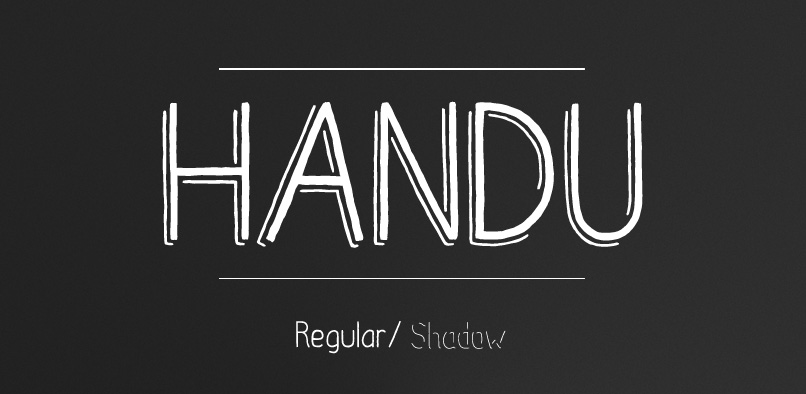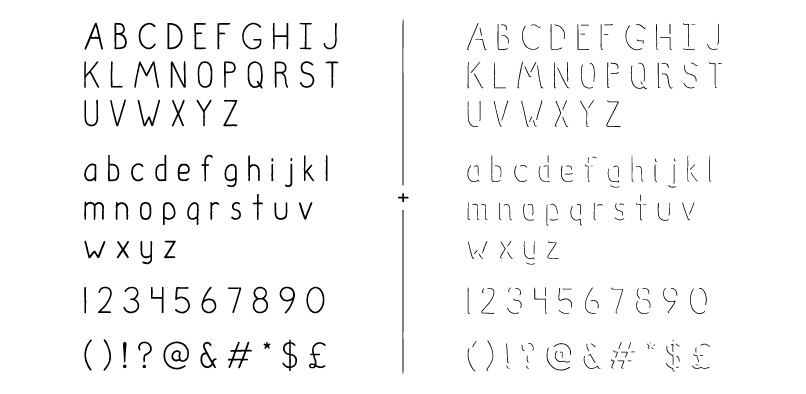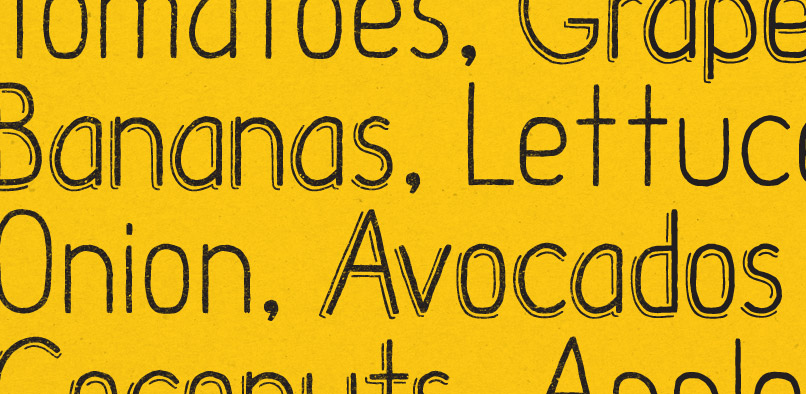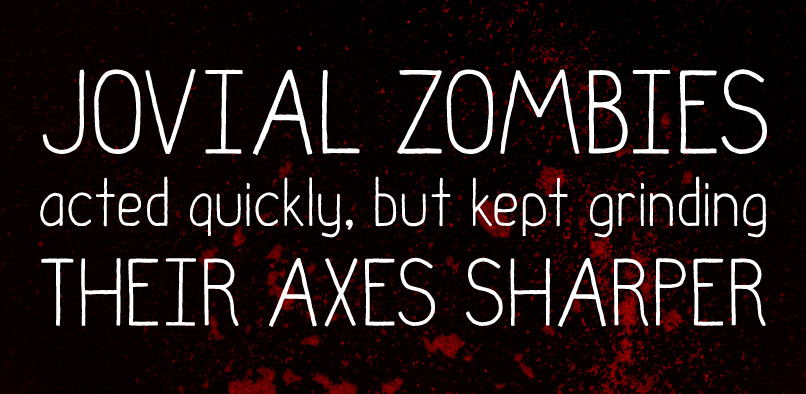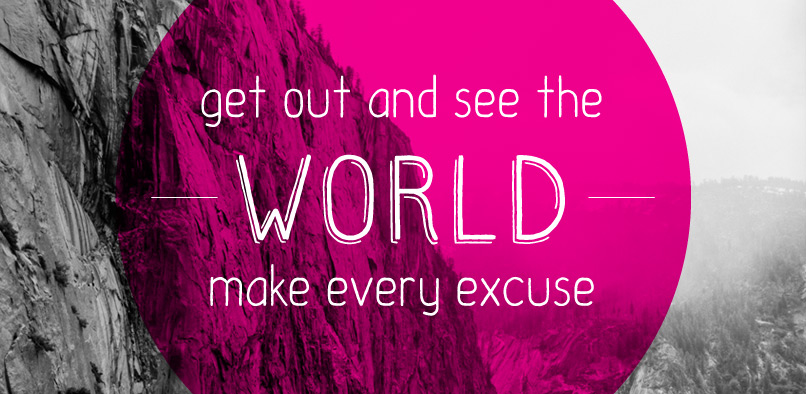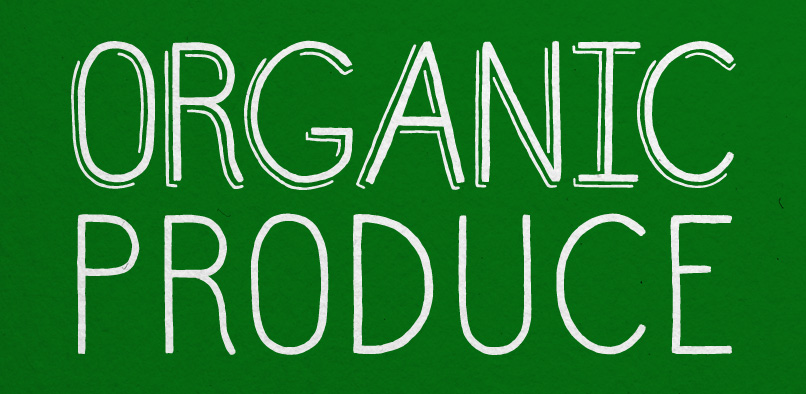
Handu, designed by Alex Jacque in 2012, is an affable hand-drawn sans-serif inspired by the hand-painted type and signage on the streets of Kolkata, India. Fitting then that it come to life with brush and paint. When used for display purposes the organic, painted texture of Handu’s glyphs really shines. At smaller point-sizes the hand-drawn aesthetic still translates. Handu comes in two styles, regular and shadow. Use each independently or overlay them for a little youthful emphasis.